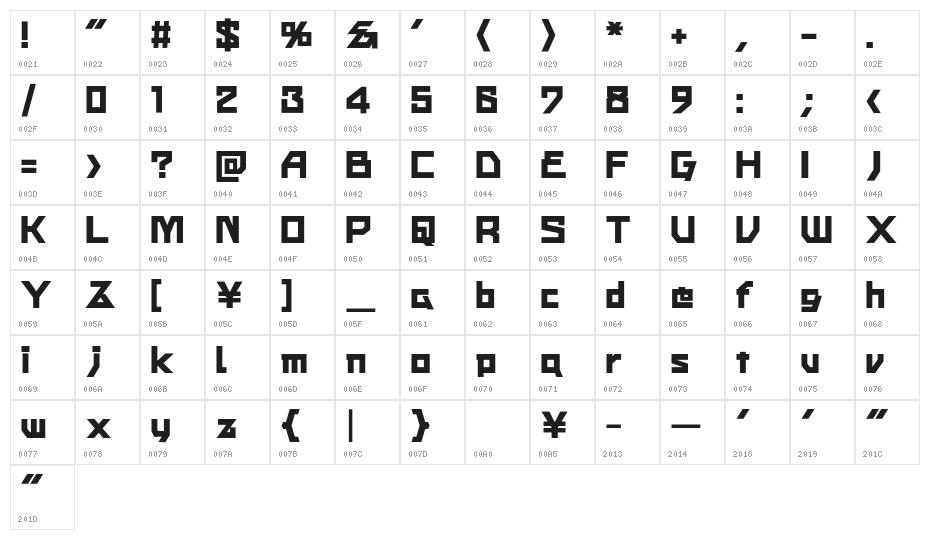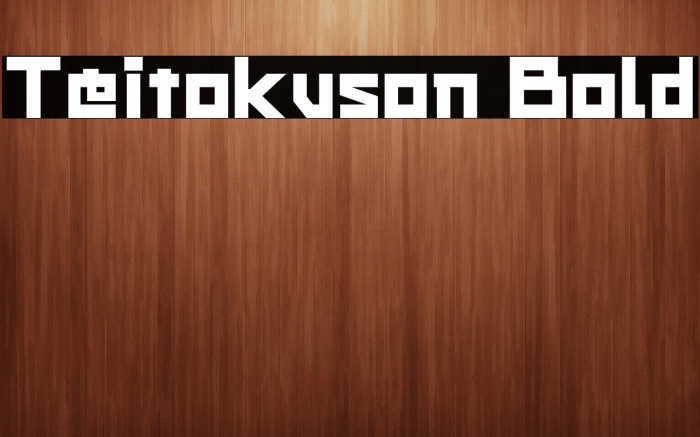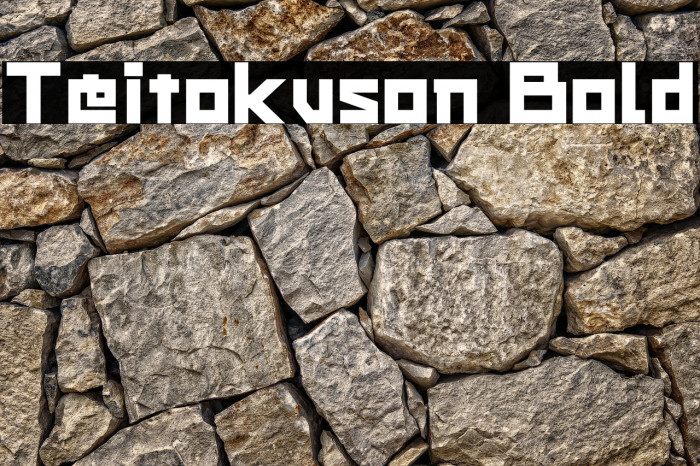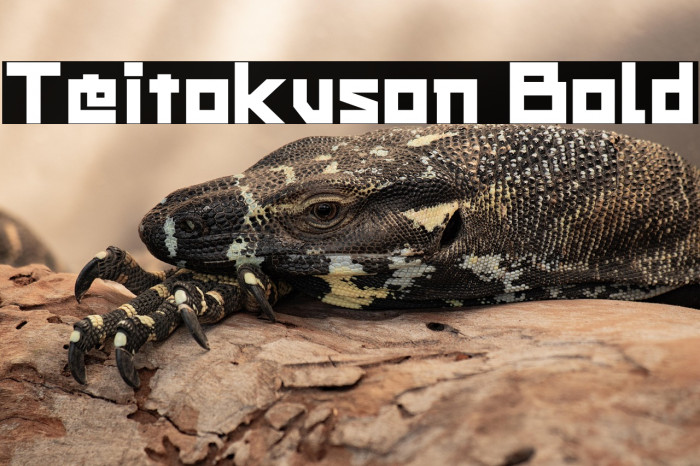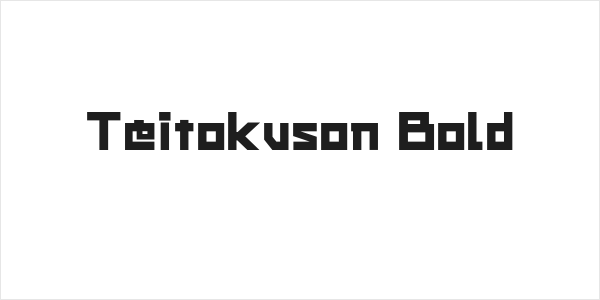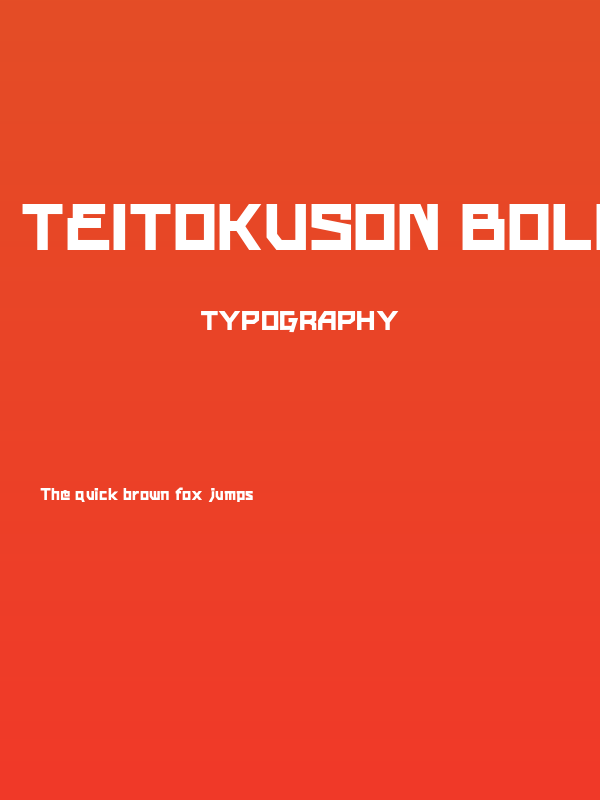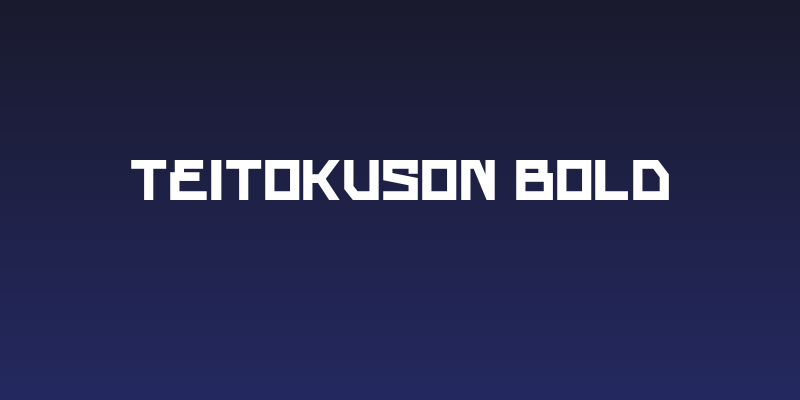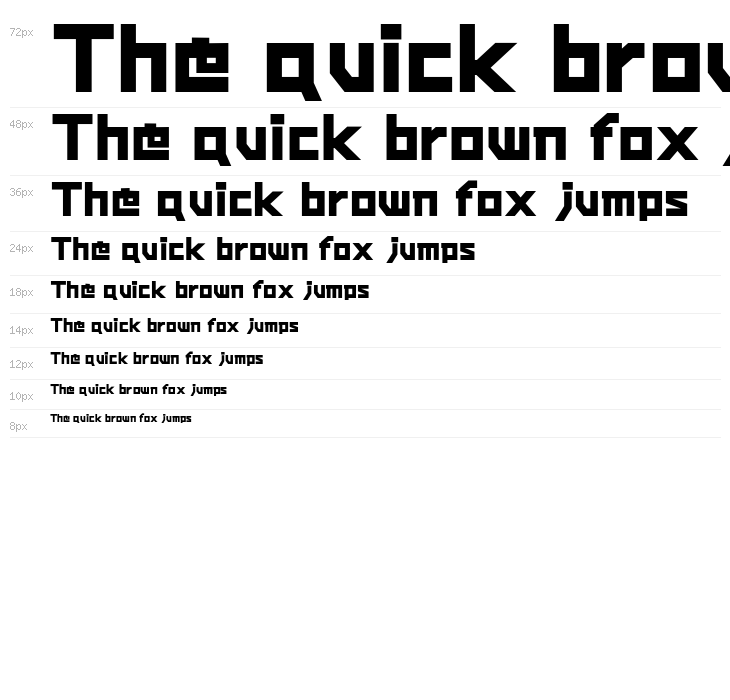
Teitokuson Bold Font
Teitokuson Bold Description
This font features a bold and geometric design with sharp angles and a futuristic aesthetic. The characters are constructed with thick, uniform strokes, giving them a strong and commanding presence. The uppercase and lowercase letters maintain a consistent style, with unique angular cuts that add a distinctive edge. The numerals and special characters follow the same design principles, ensuring a cohesive look across all elements. The font's boldness and geometric nature make it ideal for projects that require a modern and impactful visual statement.
| Proposed Projects | Ideal for sci-fi themed designs, video game titles, tech branding, and modern posters. |